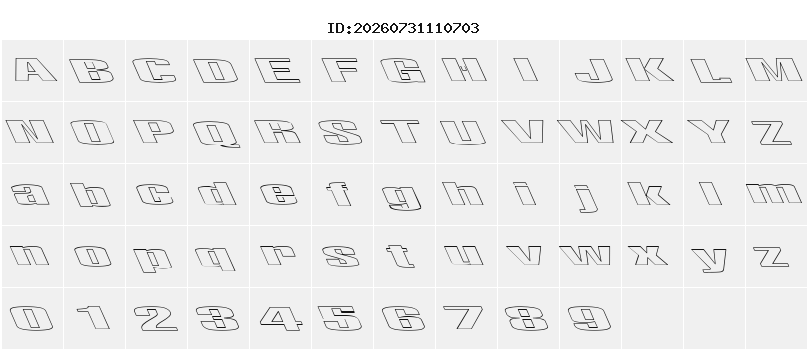
LightsOut HoLLOW Leftie Preview
• Font Name: LightsOut HoLLOW Leftie
• Full Font Name: LightsOut HoLLOW Leftie
• PostScript Name: LightsOutHoLLOWLeftie
About LightsOut HoLLOW Leftie.ttf
LightsOut HoLLOW Leftie.ttf is a modern, elegant sans-serif font designed for ultimate readability and visual harmony. Perfect for branding, headlines, web design, and print materials.